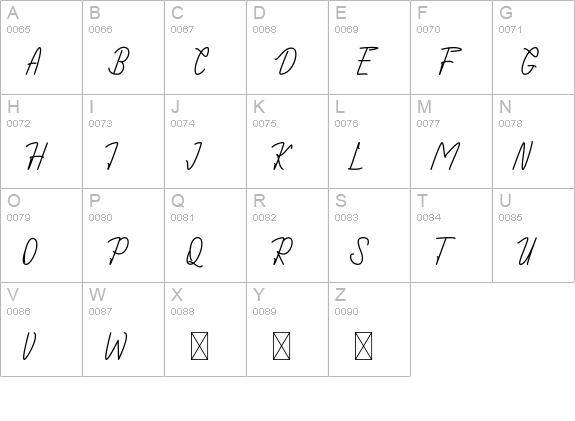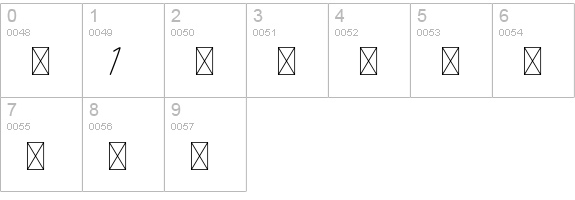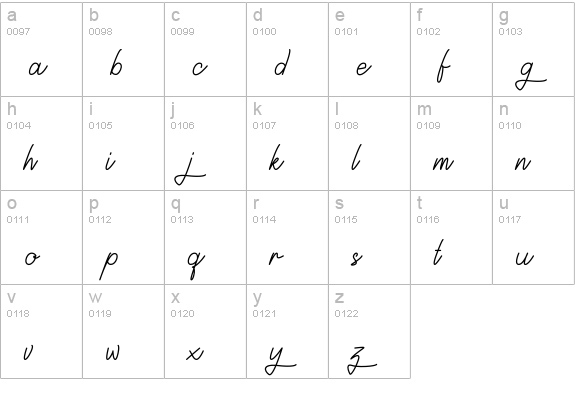
Astida Font Details
Astida is a free for personal use font in the Script category, designed by mytype. It has been downloaded 111 times and is available for Windows, Mac and Linux.
Astida font is a beautifully crafted typeface that exudes elegance and sophistication. Its sleek lines and modern aesthetic make it a versatile choice for a wide range of design projects. With its clean, easy-to-read letterforms, Astida font is perfect for everything from branding to editorial design.